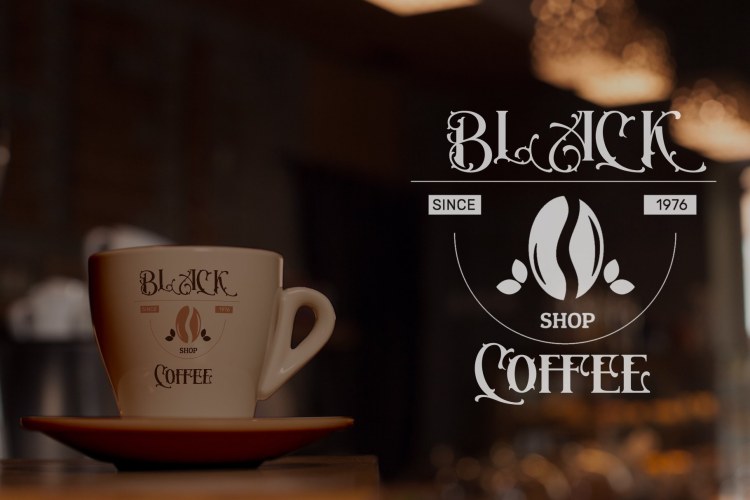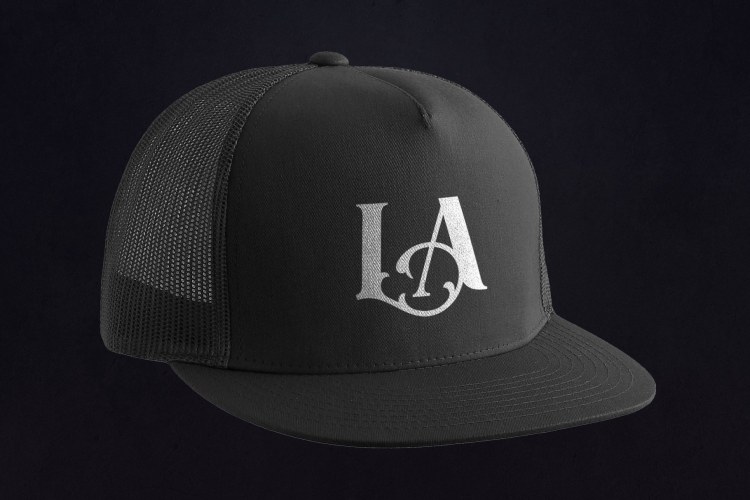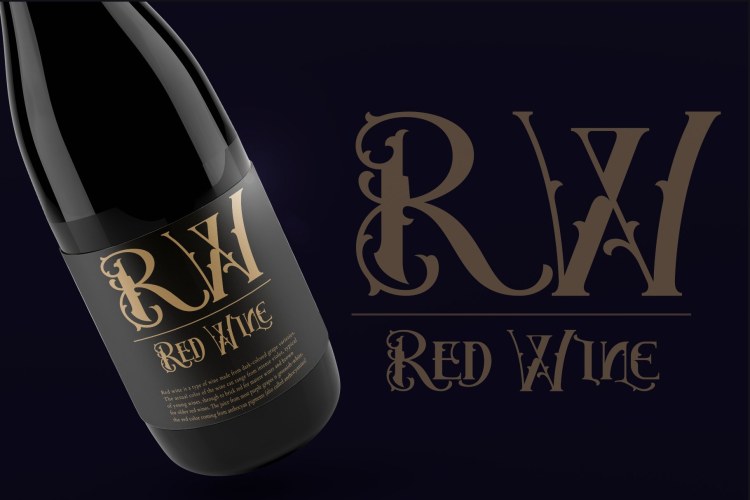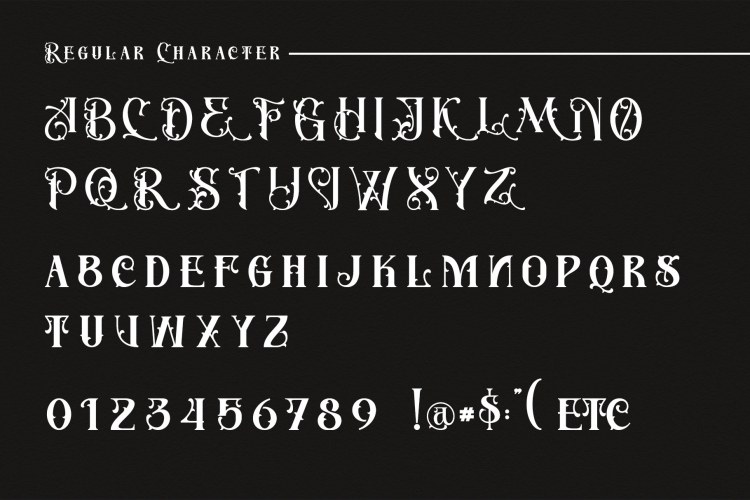
Serath – Blackletter Font
Step into a world of bold sophistication with Serath, a remarkable blackletter font that exudes power and elegance. Its distinct and imposing design showcases uniquely shaped letters, making it the perfect choice for creations that demand a touch of distinction. Whether you’re working on product packaging, branding, or any project that requires bold and daring typography, Serath will effortlessly make a statement. Unlock its full potential with its PUA encoding, granting you easy access to a wide array of glyphs and swashes. Embrace the confidence that comes with incorporating Serath into your projects, and prepare to be amazed by the remarkable results it delivers.
Serath – Blackletter Font is a Display Fonts font that brings a professional and versatile look to your projects. Step into a world of bold sophistication with Serath, a remarkable blackletter font that exudes power and elegance.